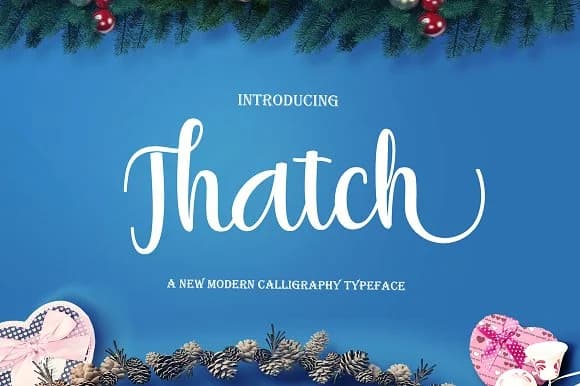
About Thatch Font
Thatch by JoeeCreative is a flowing script font that captures the authentic essence of handwritten letterforms. Unlike many digitized scripts that feel mechanical or overly processed, Thatch preserves the distinctive character of genuine pen-on-paper penmanship through its naturally connected strokes, subtle rhythm variations, and organic baseline flow. The letterforms maintain excellent legibility across sizes, from display-level headlines down to smaller body text applications, making it a genuinely versatile choice for both digital and print projects. Its construction strikes an ideal balance between artistic expression and practical usability.
The font excels across diverse creative applications that benefit from its personal, handcrafted aesthetic. Wedding invitation suites shine with its elegant flowing lines, while artisan food packaging labels gain immediate credibility through its handmade character and organic appearance. Bespoke greeting card designs feel custom rather than templated, and boutique fashion labels convey authenticity that resonates strongly with discerning customers seeking distinction from mass-market alternatives. Designers particularly appreciate its ability to carry distinctive logo work that demands personality, while content creators find it ideal for custom social media graphics that stand out in crowded feeds. Built for commercial use, Thatch gives you the freedom to apply it across personal projects and professional client work alike. Get Thatch Font on Creative Fabrica and bring that unmistakably handwritten character to your next design.
Thatch Font is a script font that shines as a display or heading face. Pair it with a clean sans-serif or serif font for body text β the contrast creates a clear hierarchy while the two styles stay balanced and easy to read.
Thatch Font
by JoeeCreative